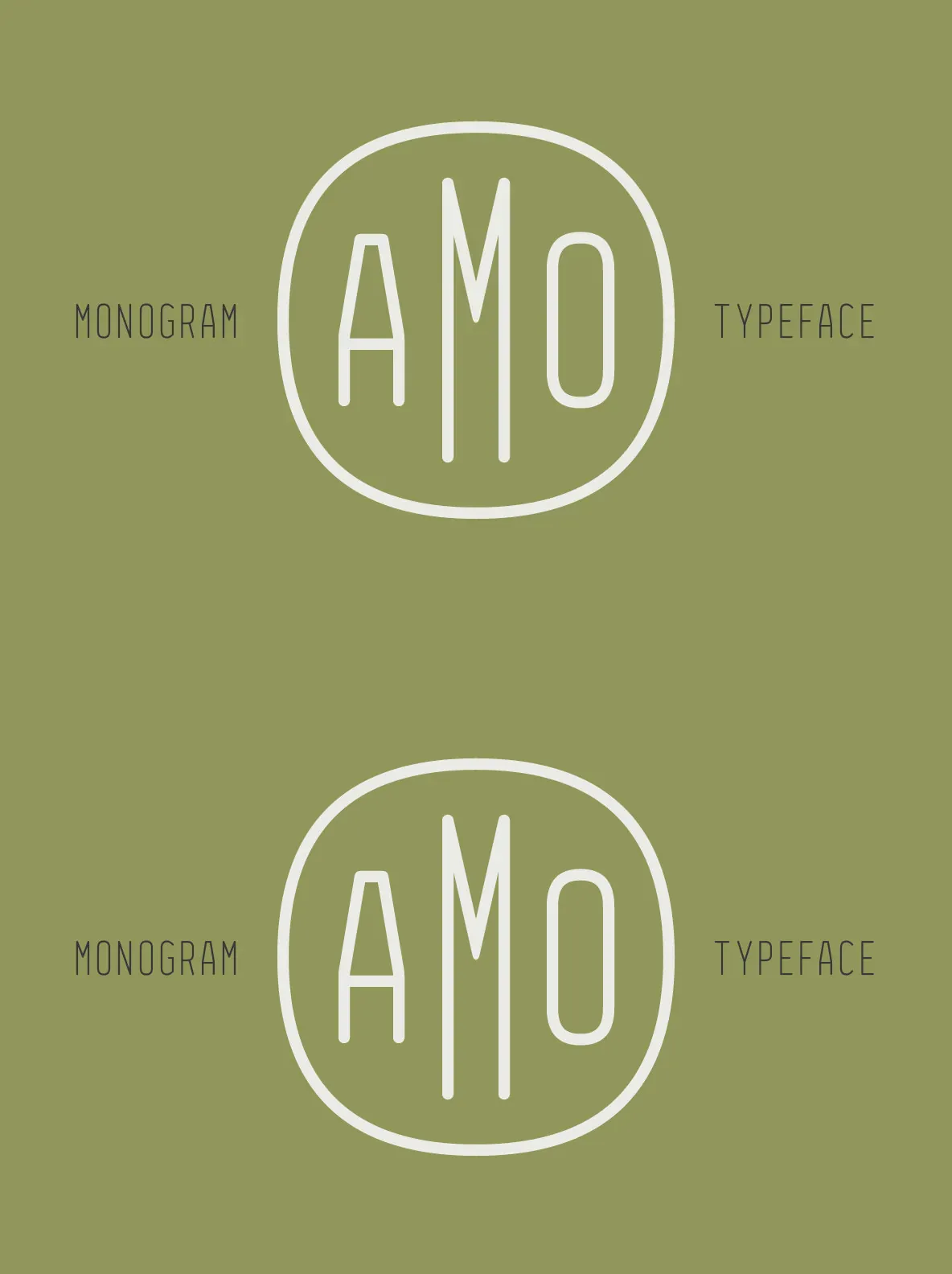
Amo Font
Amo is a monospaced sans-serif typeface designed for creating monograms and rounded badges.
To create a monogram, type a parenthesis, bracket or brace (these are your different badge sizes) followed by any combination of uppercase, lowercase and/or small cap characters.
Amo is available in 3 weights—thin, light and normal—and includes support for most Latin languages. Check out Amo’s serif twin, Ama. http://ywft.us/27cf8021c